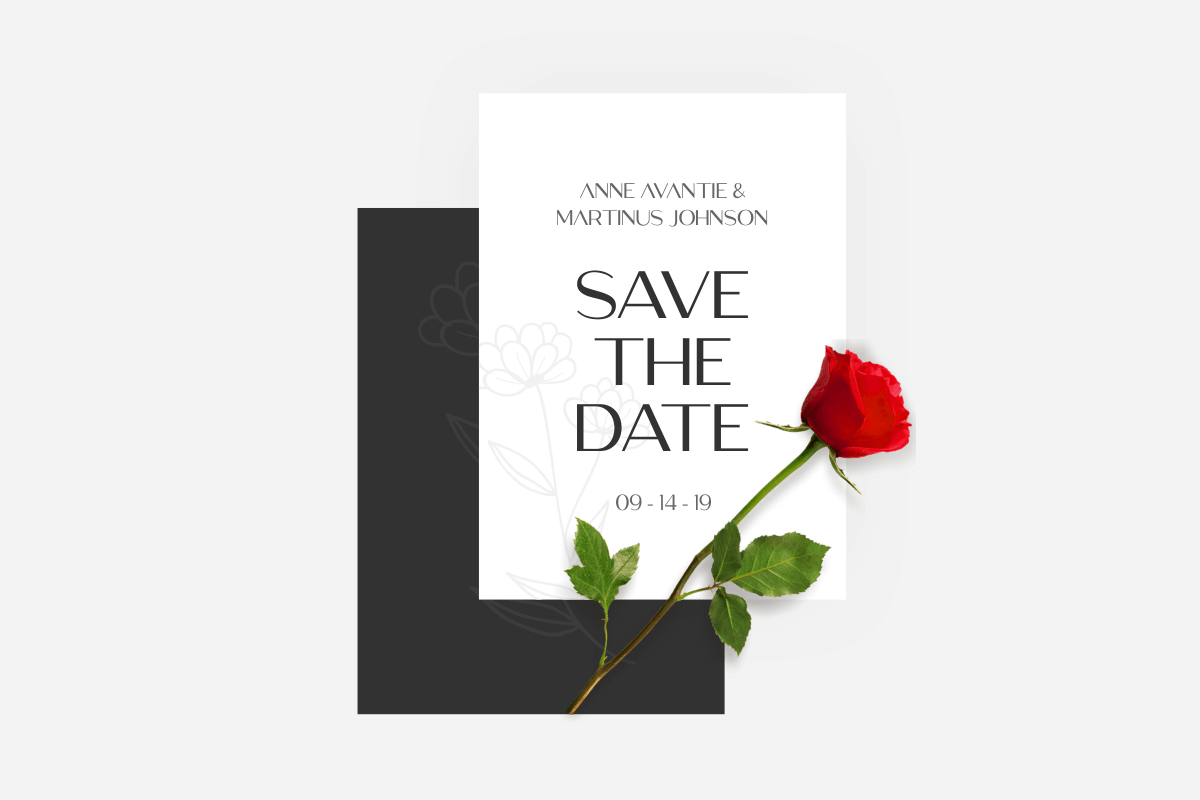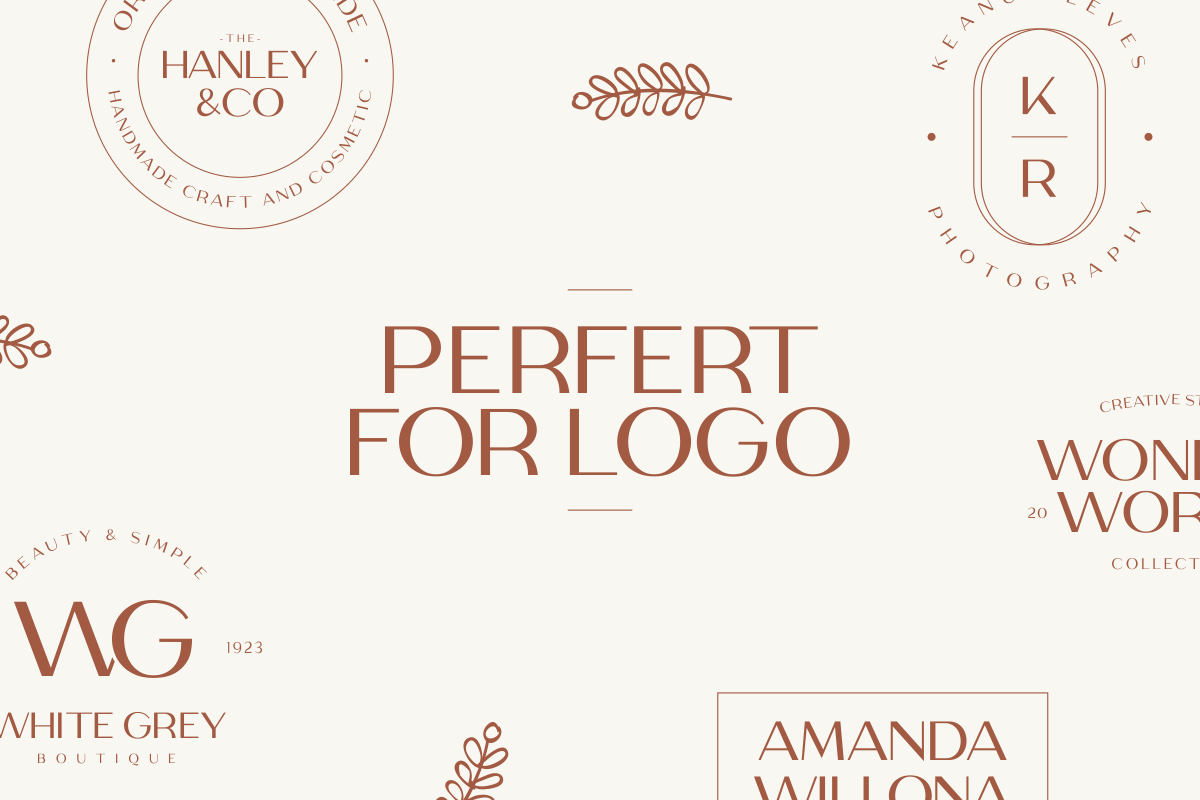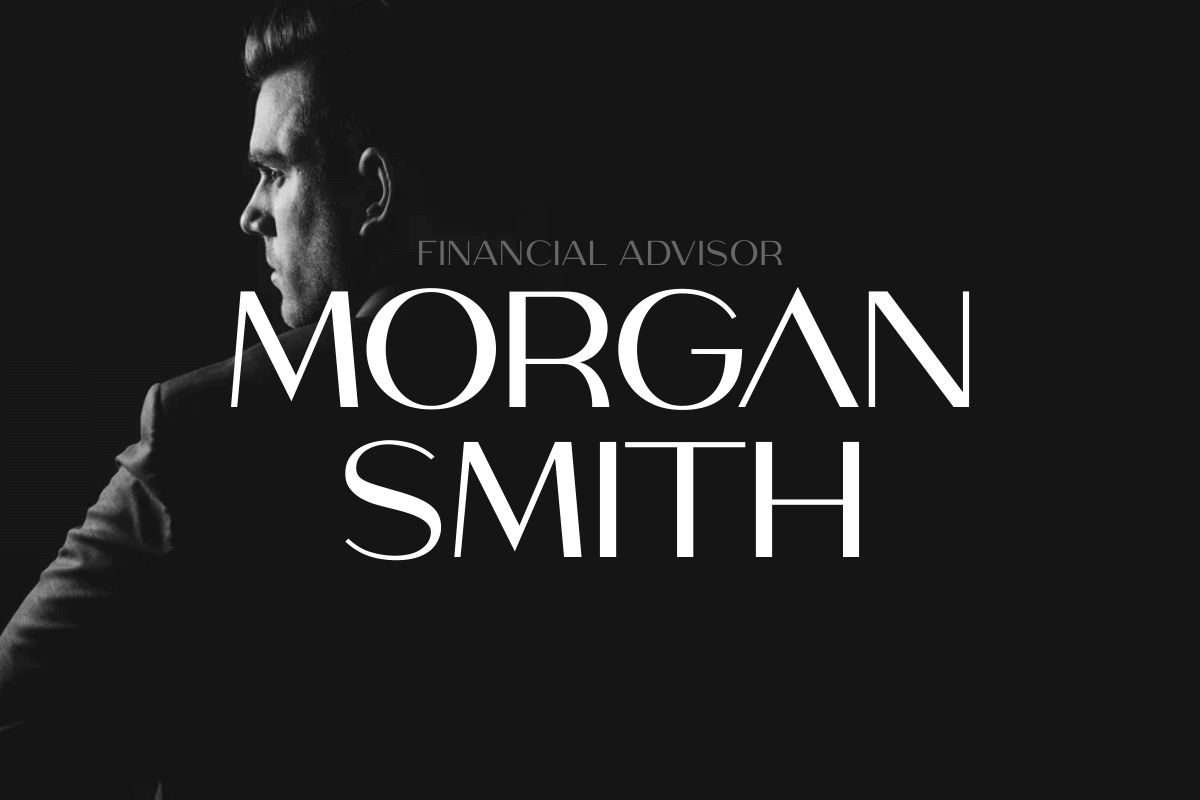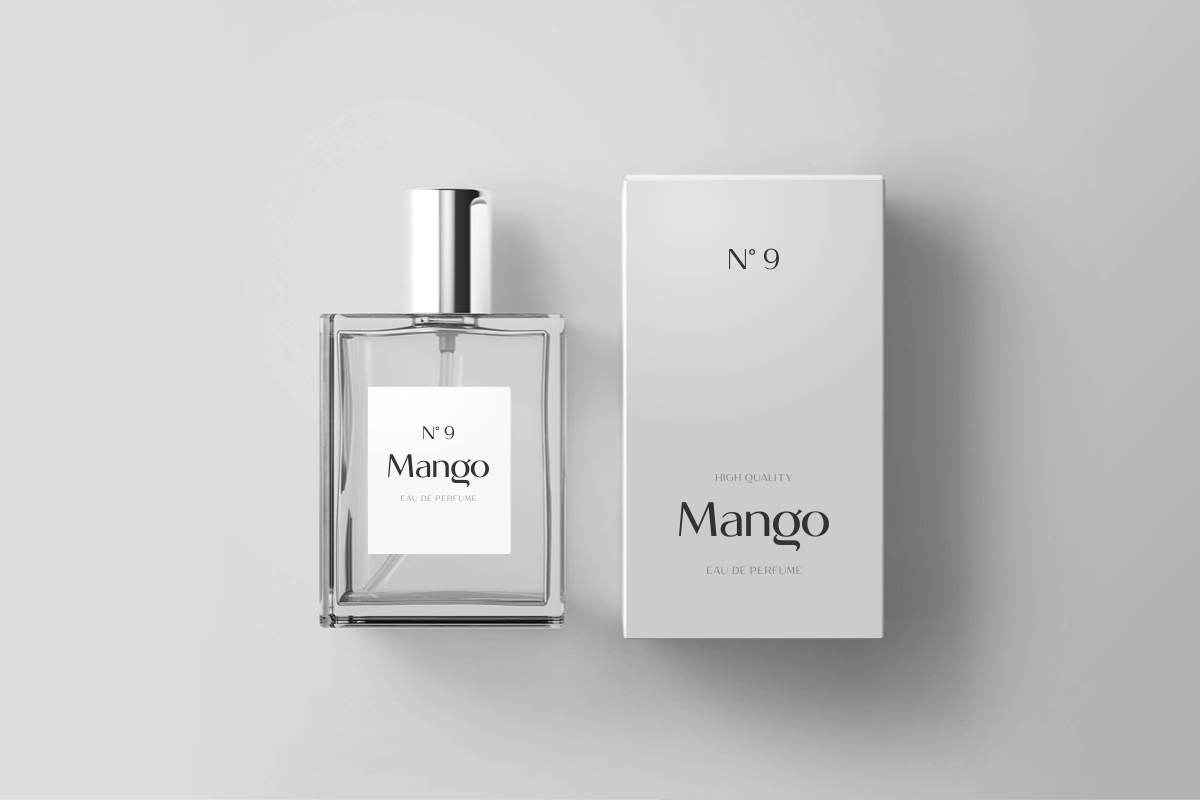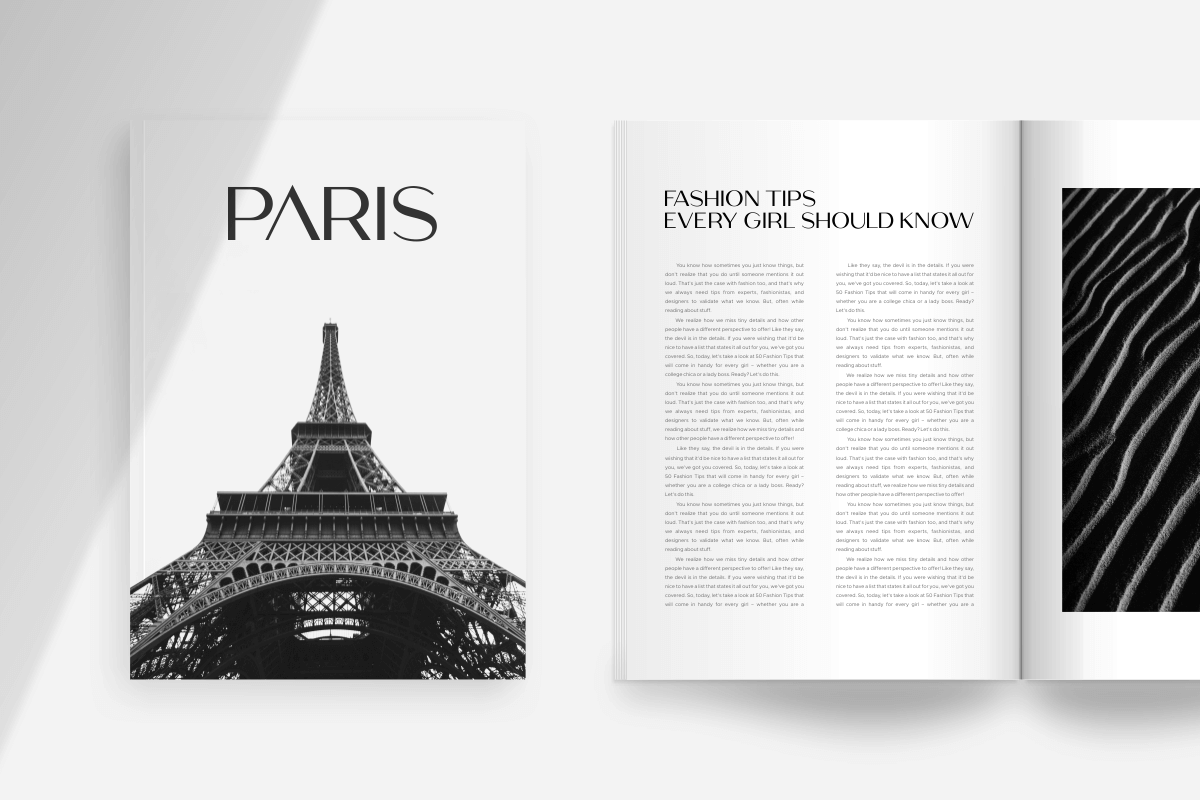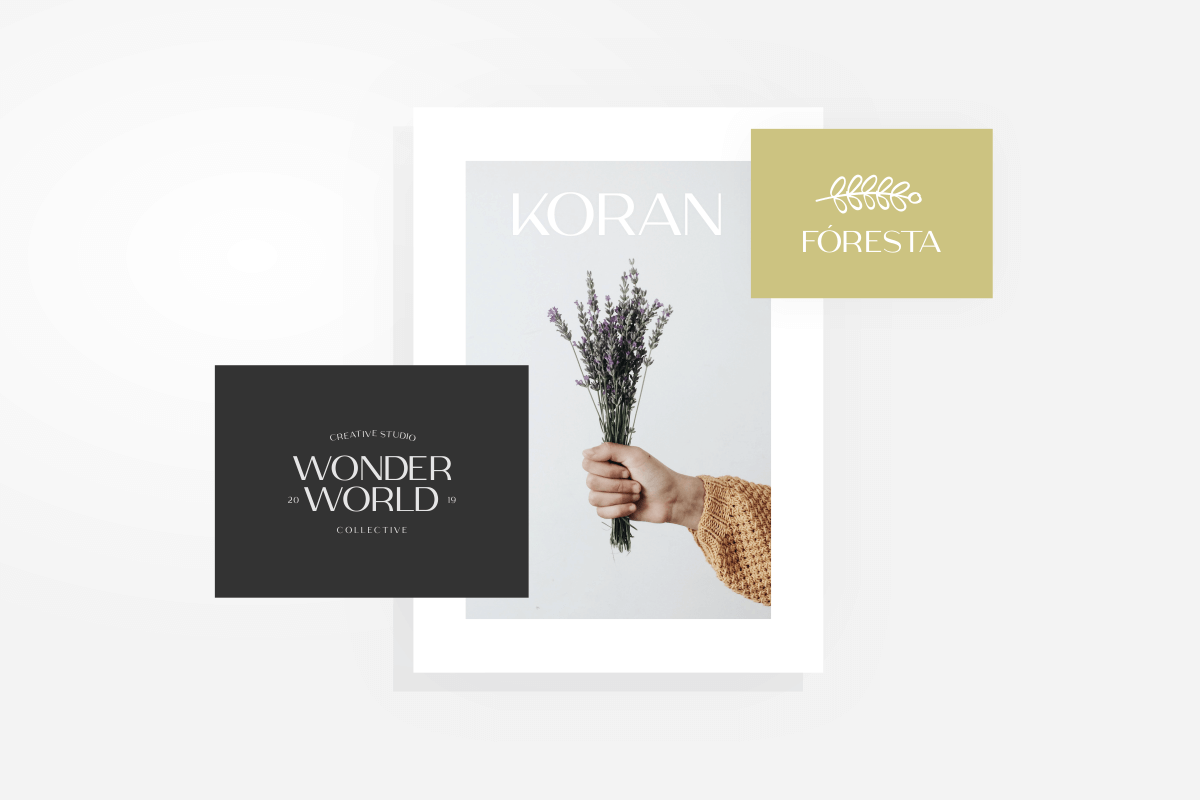
Megante - Classy Font
Meganté is a stylish modern calligraphy font with casual chic flair. It is perfect for branding, wedding invites and cards, and maybe for some project.
Meganté includes a full set of gorgeous uppercase and lowercase letters, numerals, and alternates. What will you get?